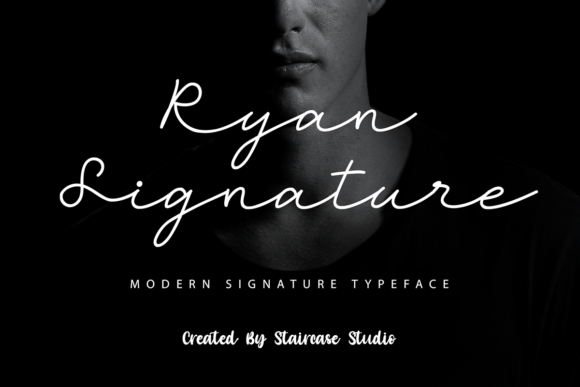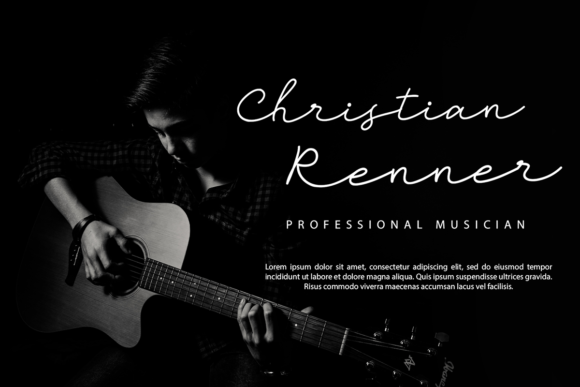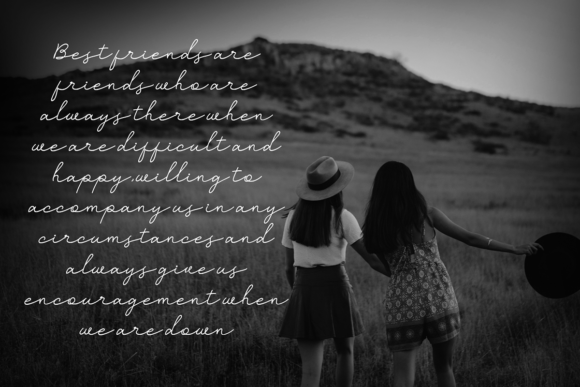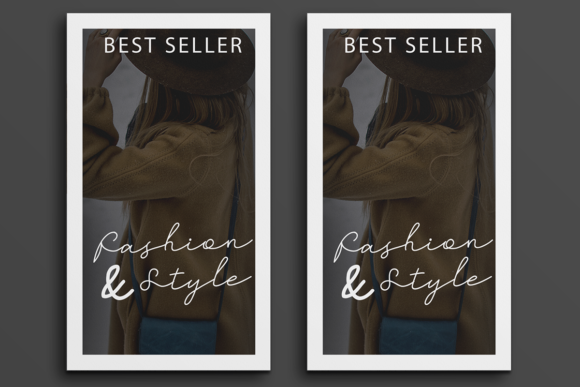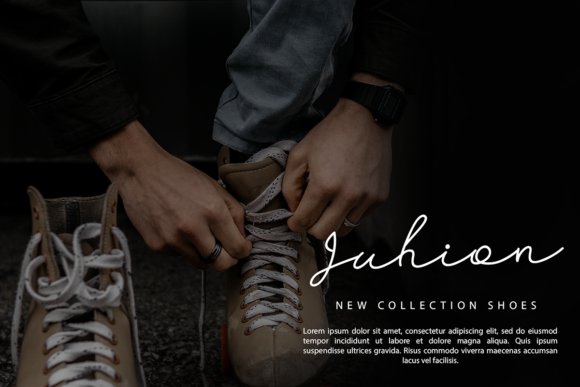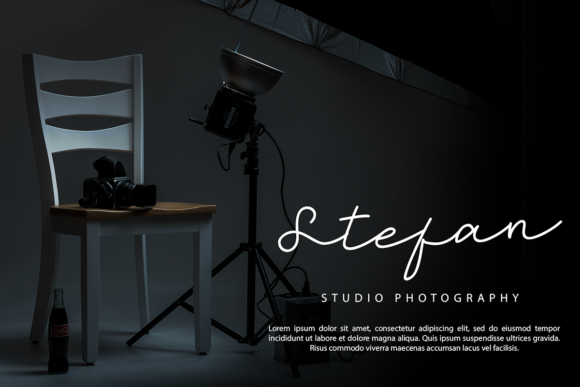
Ryan Signature Font
About Ryan Signature Font
Ryan Signature is a modern signature typeface, suitable for logotype, branding design, logo design, digital lettering arts, t-shirt/apparel, poster, magazine, signs, advertising design, and any design needs.